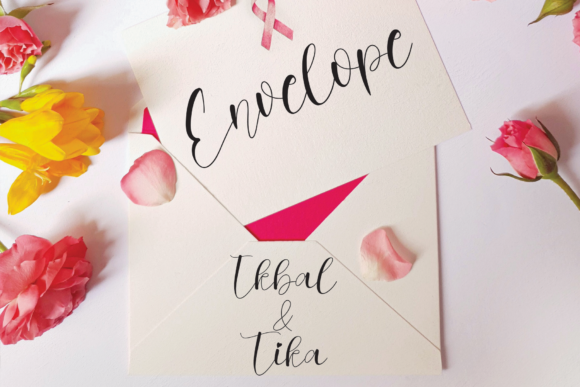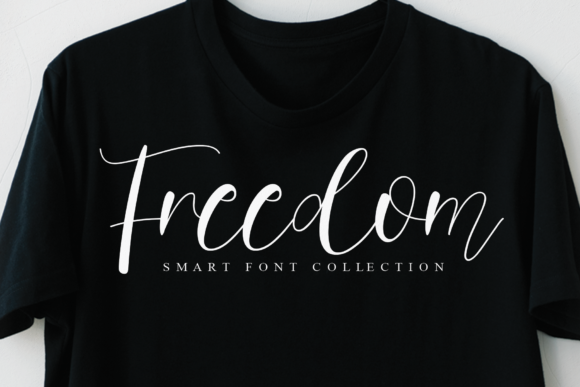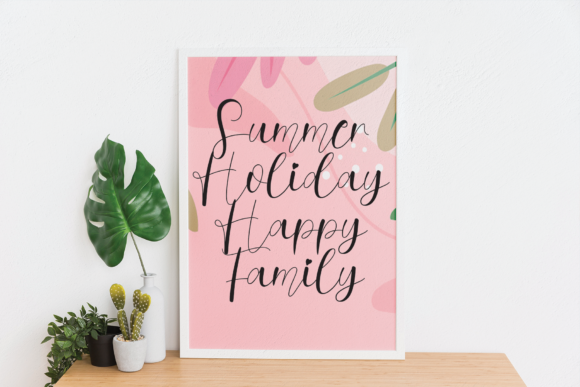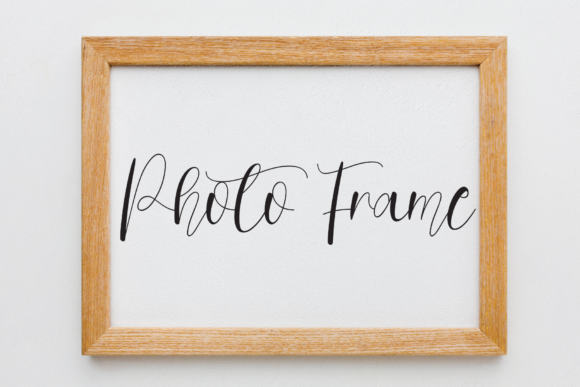
Introducing Butterly Font: The Perfect Handwritten Touch for Your Designs
Are you looking for a font that adds a touch of warmth and coziness to your designs? Look no further than Butterly Font, an exquisite handwritten font that is sure to bring a smile to your audience’s faces. With its cheerful and inviting appearance, Butterly Font is perfect for a wide range of design projects, from logos and watermarks to photography and labels.
The Characteristics of Butterly Font
Butterly Font is a carefully crafted handwritten font that boasts a unique and charming personality. Its letters are designed to be playful and whimsical, with subtle imperfections that give it a human touch. The font’s lines are smooth and flowing, with a gentle bounce that adds to its cheerful appearance. Whether you’re looking for a font to add a personal touch to your branding or to create eye-catching labels and name tags, Butterly Font is an excellent choice.
Uses for Butterly Font
One of the best things about Butterly Font is its versatility. Its handwritten appearance makes it perfect for a wide range of design projects, including:
- Logos: Add a personal touch to your brand’s logo with Butterly Font. Its unique and cheerful appearance is sure to make your brand stand out.
- Watermarks: Protect your photography and add a touch of elegance with Butterly Font watermarks.
- Photography: Use Butterly Font to add captions and titles to your photos, giving them a personal and artistic touch.
- Labels and Name Tags: Create eye-catching labels and name tags with Butterly Font. Its handwritten appearance is perfect for craft fairs, events, and more.
- Crafting and DIY Projects: Add a touch of personality to your crafting and DIY projects with Butterly Font. Use it to create signs, banners, and other decorative items.
Why Choose Butterly Font?
With so many fonts available, why choose Butterly Font? Here are just a few reasons why designers and crafters love this font:
- Unique and Handwritten: Butterly Font is a one-of-a-kind handwritten font that adds a personal touch to any design project.
- Easy to Read: Despite its playful appearance, Butterly Font is easy to read and understand, making it perfect for body text and captions.
- Versatile: Butterly Font can be used for a wide range of design projects, from logos and branding to labels and crafting projects.
- High-Quality: Butterly Font is a high-quality font that is designed to look great on any device or medium.
Tips for Using Butterly Font
Here are a few tips for getting the most out of Butterly Font:
- Pair it with Other Fonts: Butterly Font looks great when paired with other fonts. Try pairing it with a bold sans-serif font for a striking contrast.
- Use it in Different Sizes: Experiment with different sizes to see how Butterly Font looks in different contexts. It can be used for both headings and body text.
- Add a Personal Touch: Don’t be afraid to add your own personal touch to your designs with Butterly Font. Use it to create unique and eye-catching designs that reflect your brand’s personality.
In conclusion, Butterly Font is a beautiful and versatile handwritten font that is perfect for designers and crafters looking to add a personal touch to their designs. With its cheerful and cozy appearance, it’s sure to bring a smile to your audience’s faces. Whether you’re looking to create logos, watermarks, labels, or any other design project, Butterly Font is an excellent choice. So why wait? Download Butterly Font today and start adding a touch of warmth and personality to your designs!